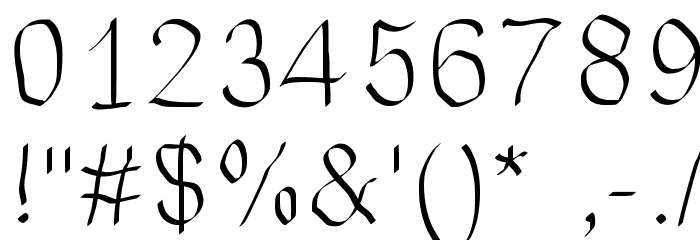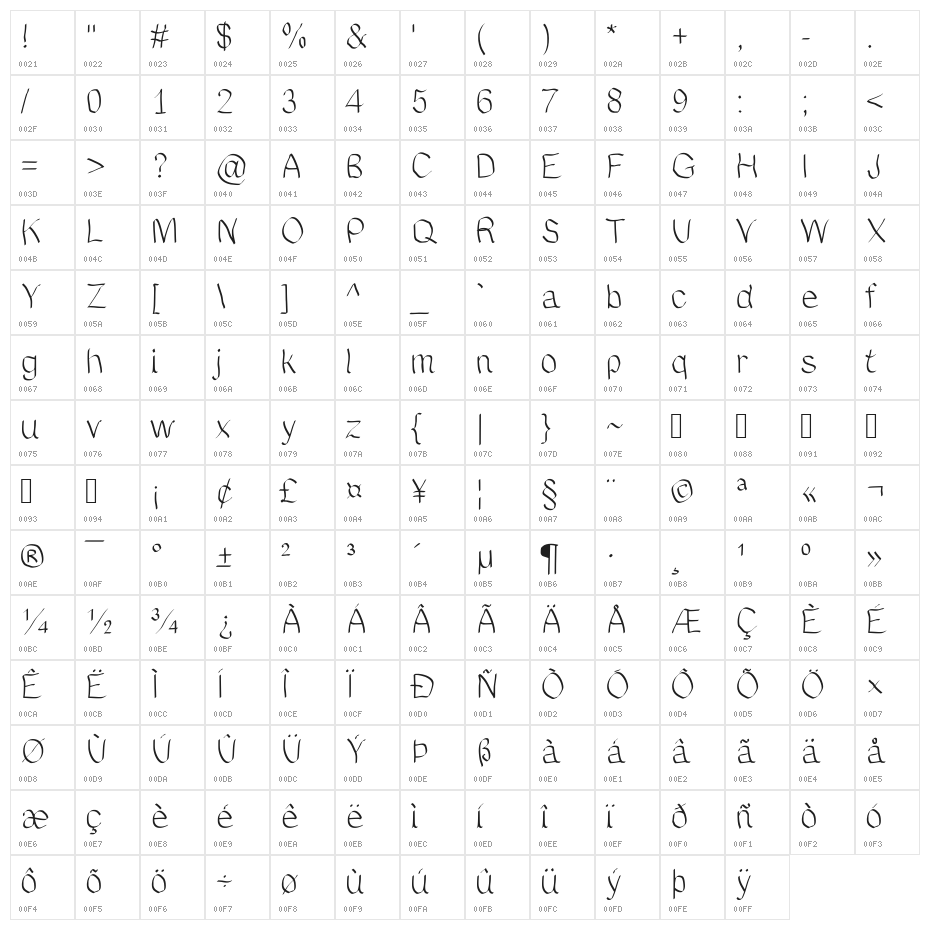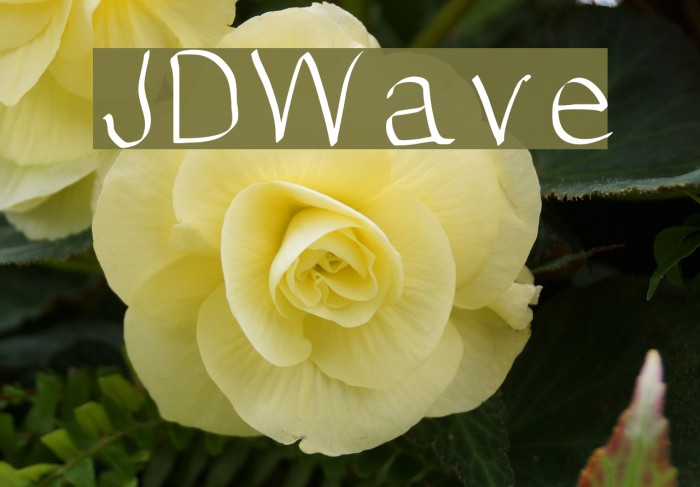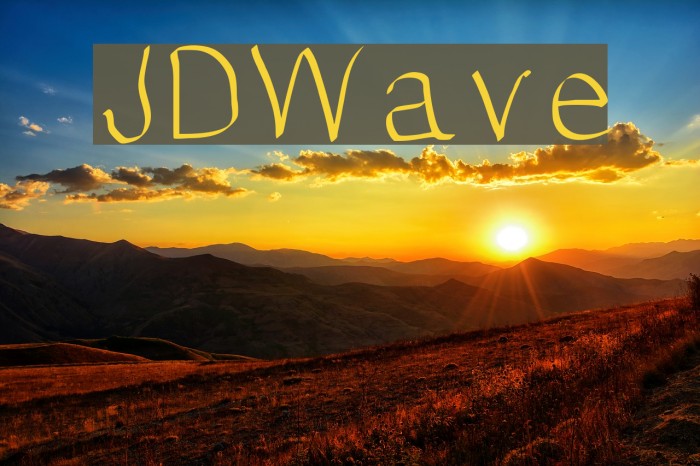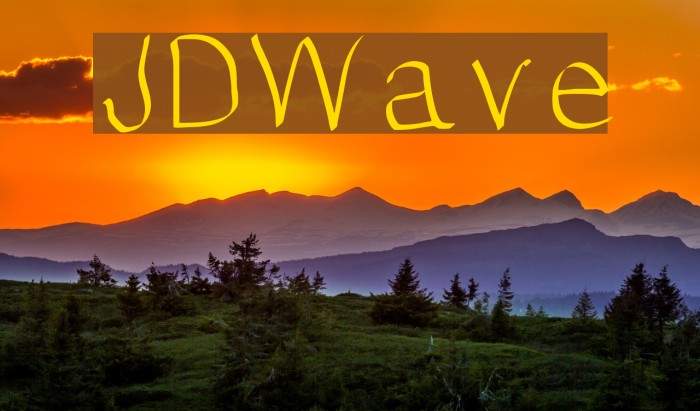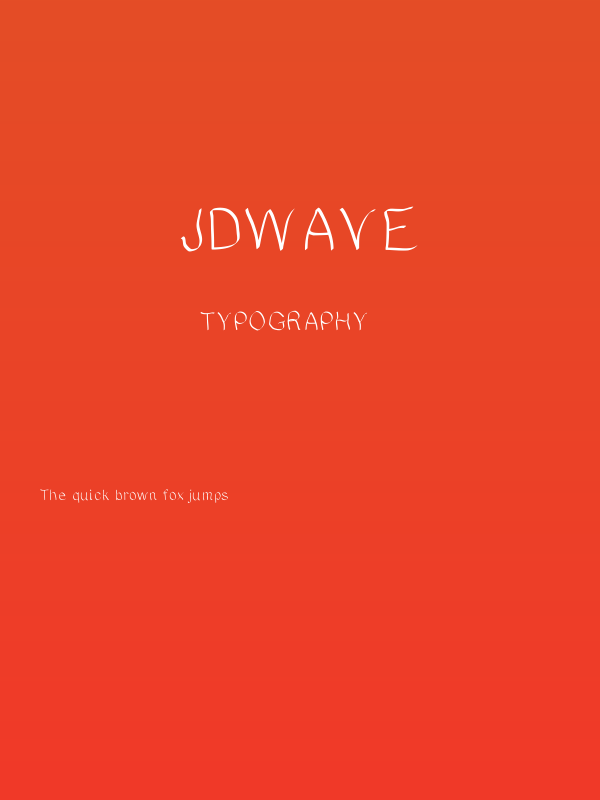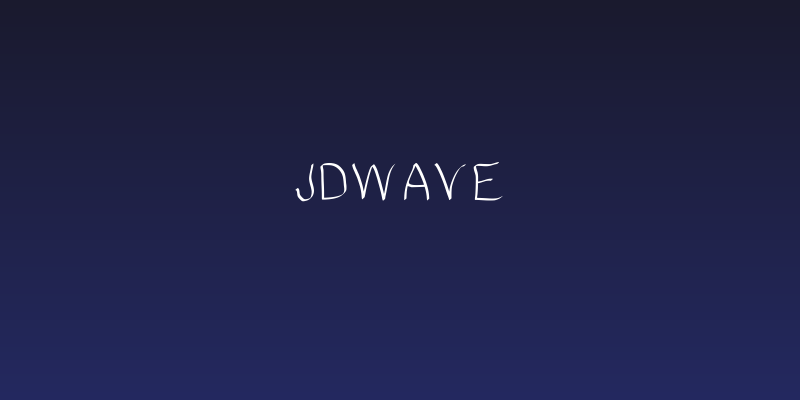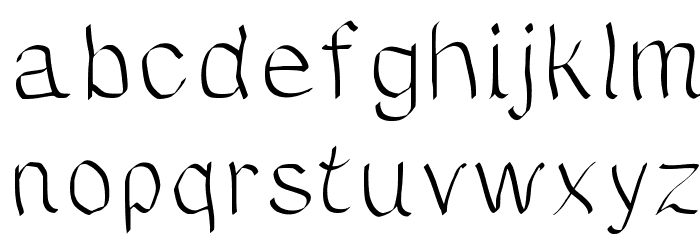
JDWave Font
JDWave Description
This font features a playful and whimsical style, characterized by its uneven strokes and hand-drawn appearance. The letters have a slightly irregular form, giving them a unique and artistic flair. The uppercase and lowercase letters maintain a consistent style, with a slight tilt and varying line thickness that adds to the font's charm. The numbers and special characters follow the same design principles, ensuring a cohesive look across all characters. This font is ideal for projects that require a personal touch or a creative, informal vibe.
Use CaseHeadlines, Logos, Creative projects
Proposed ProjectsGreat for children's books, creative posters, greeting cards, and informal branding.